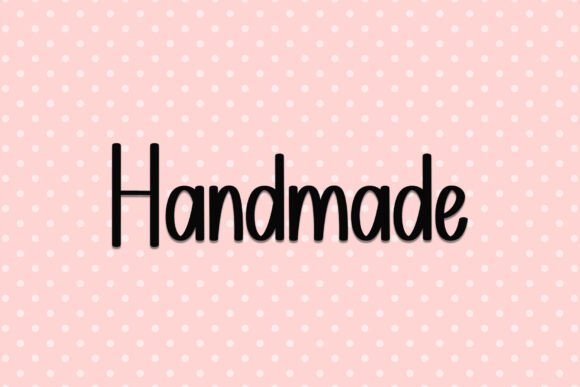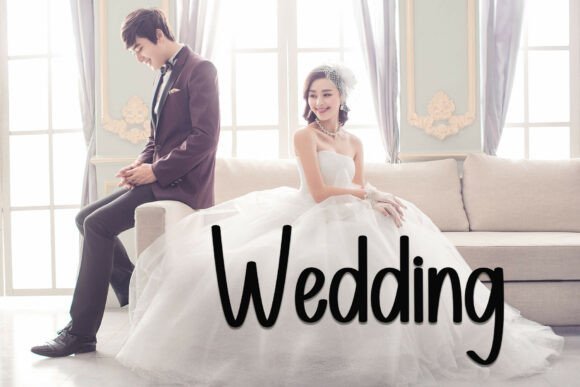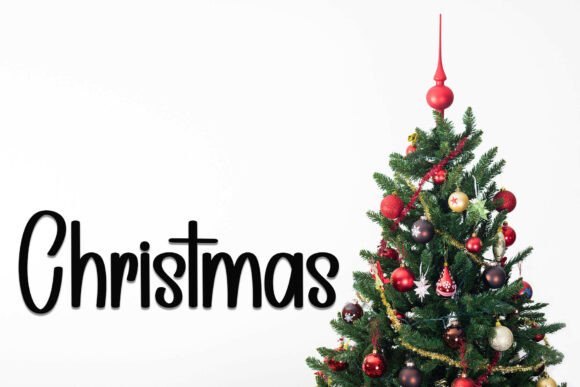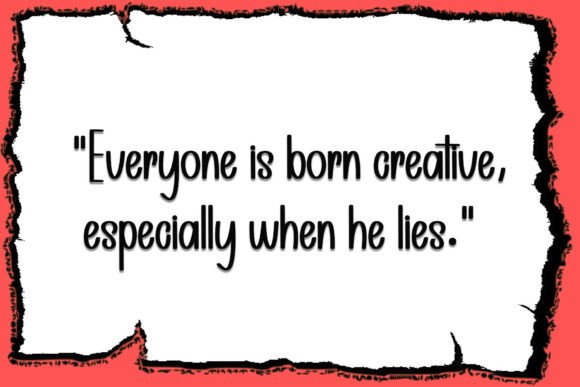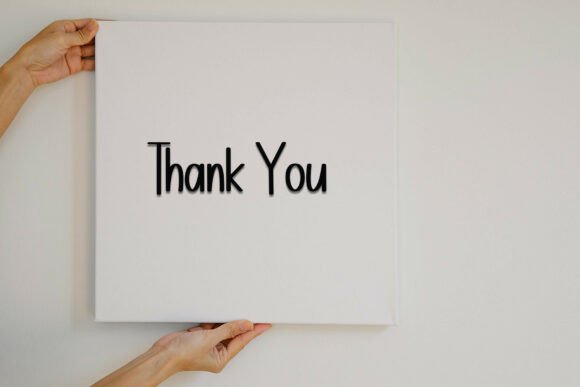
Introduction to Simple Sunshine Font Font
Fonts play a crucial role in design, and the Simple Sunshine Font font is a typeface that brings both character and versatility to any project. Whether you’re working on a branding project, a website, or a print design, the Simple Sunshine Font font offers a unique style that can elevate your work.
Simple Sunshine is a sweet and cursive handwritten font.
This gentle font will look gorgeous on a variety of design ideas It will add a joyful and romantic touch to each of your projects.
Key Features of Simple Sunshine Font Font
Why Choose Simple Sunshine Font Font?
The Simple Sunshine Font font is more than just a typeface – it’s a design tool that helps you communicate your message with style and clarity. Its unique character set and versatile design make it suitable for a wide range of applications, from elegant invitations to bold headlines.
With its carefully crafted letterforms and balanced proportions, the Simple Sunshine Font font ensures readability and visual appeal across all mediums.
What makes Simple Sunshine Font font special?
The Simple Sunshine Font font stands out with its unique design, exceptional readability, and versatility across various design applications.